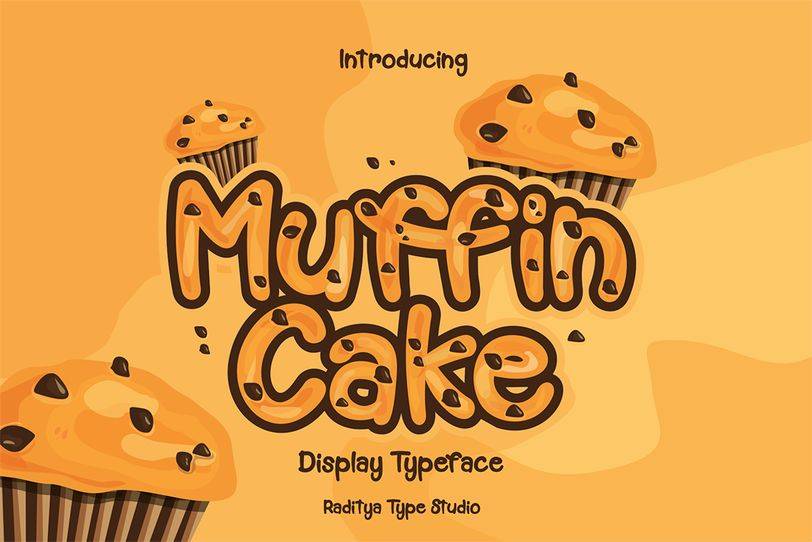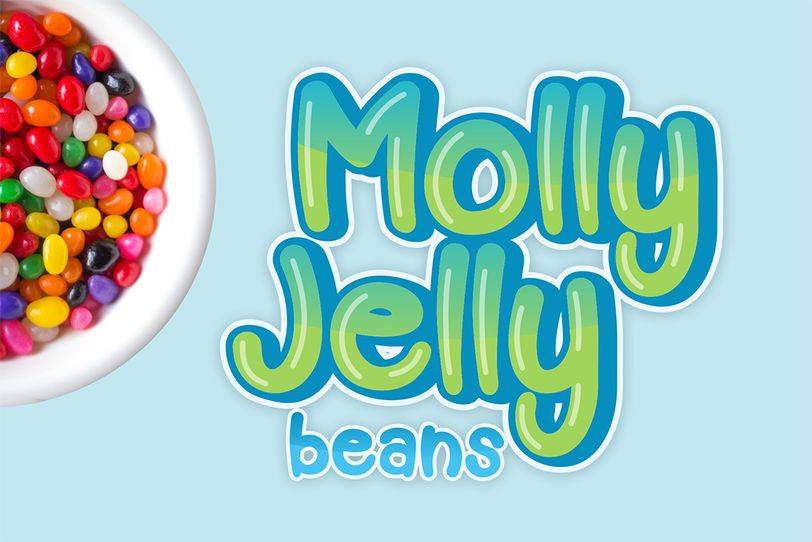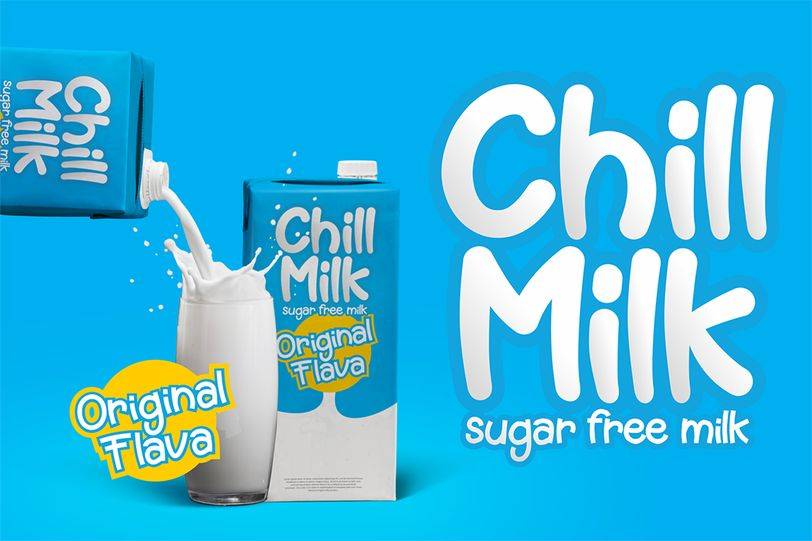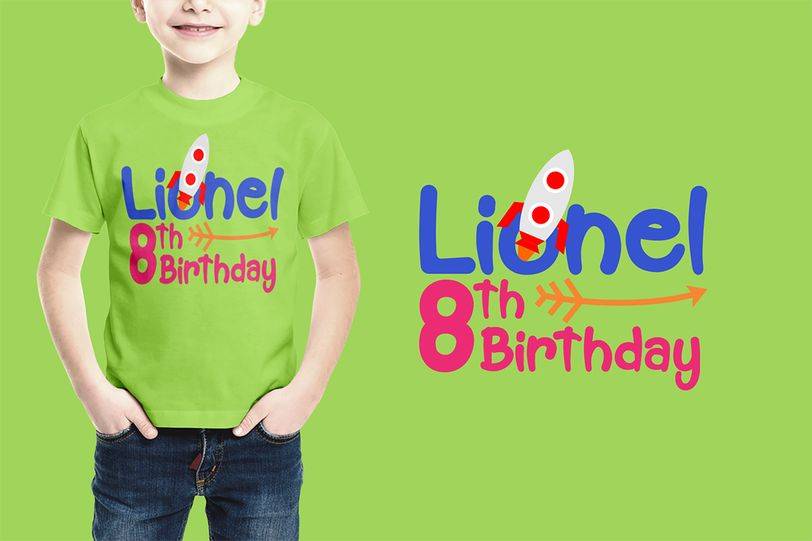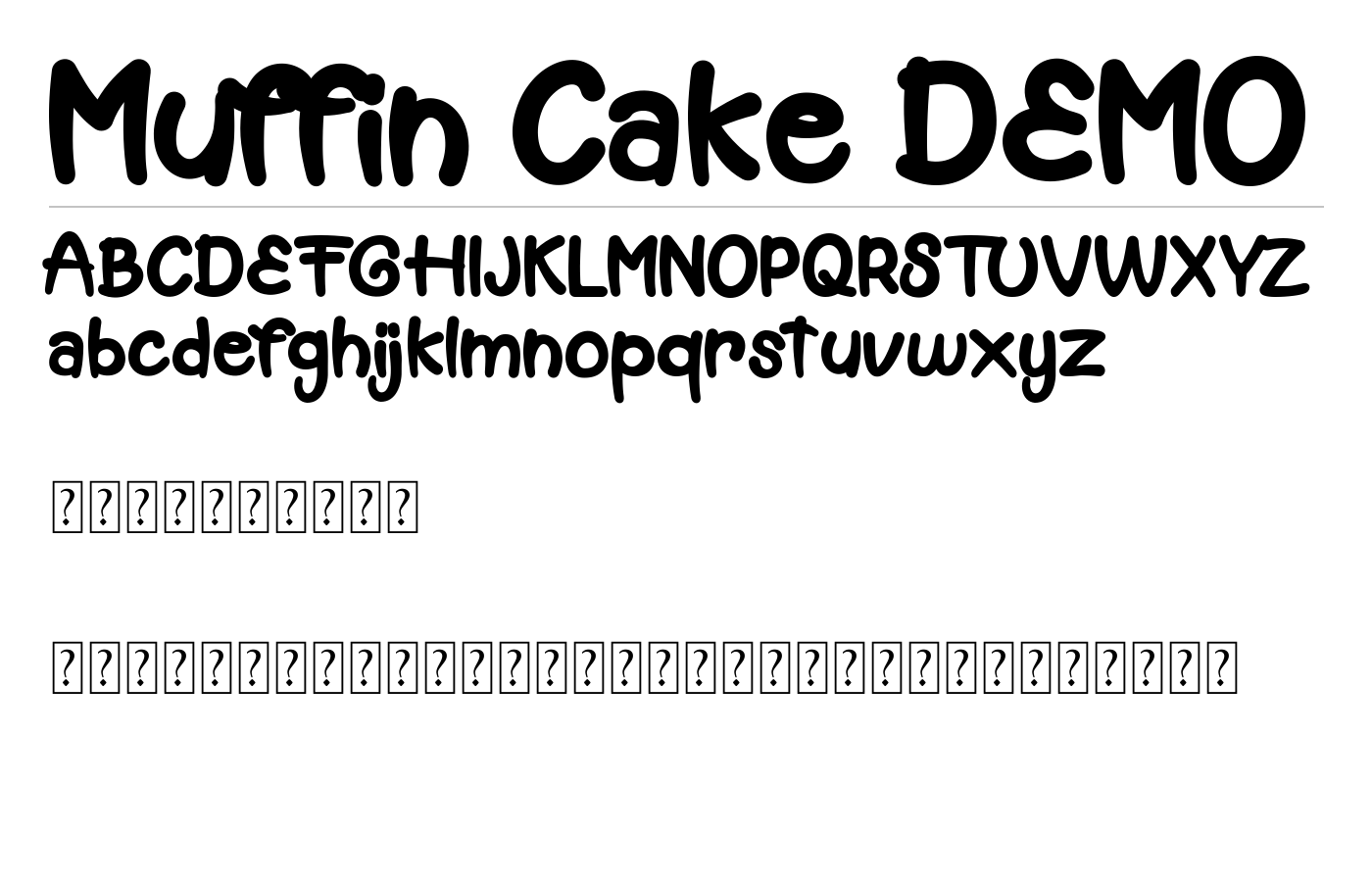
Muffin Cake Font is a playful, rounded sans serif typeface with a casual, handwritten feel. Its thick strokes and lively letterforms create an inviting and friendly tone, making it perfect for children’s content, informal branding, and fun posters. This font works best in headlines or short texts where a warm, approachable personality is desired.
Muffin Cake Font
About Muffin Cake Font
| Font family | Muffin Cake Font |
| Designer | Raditya Putra Pratama - Raditya Type |